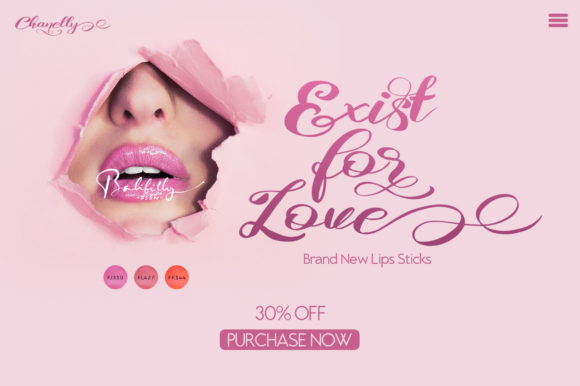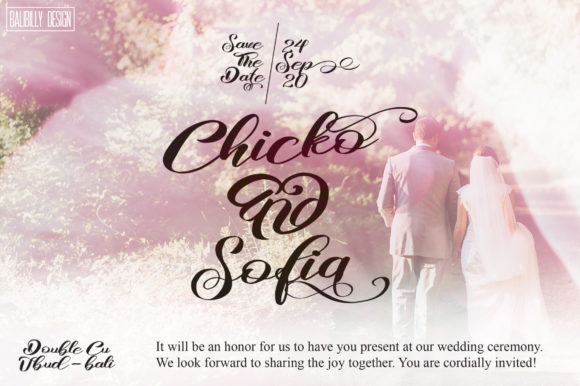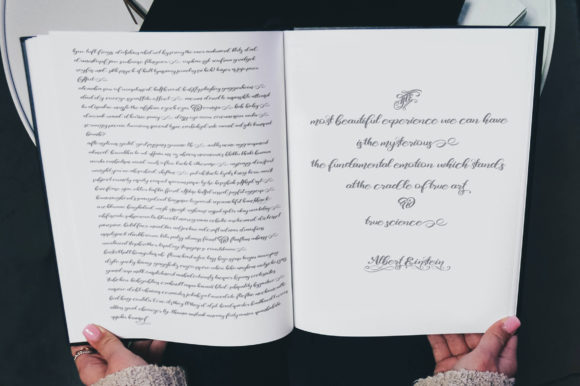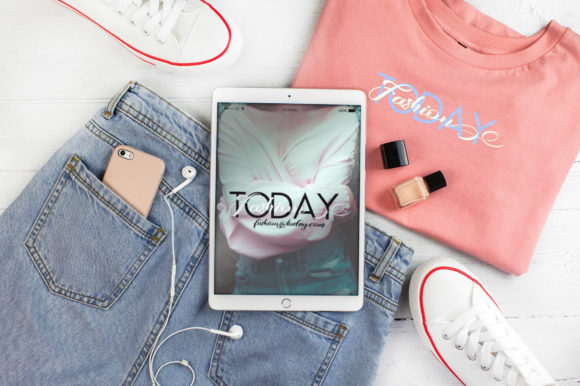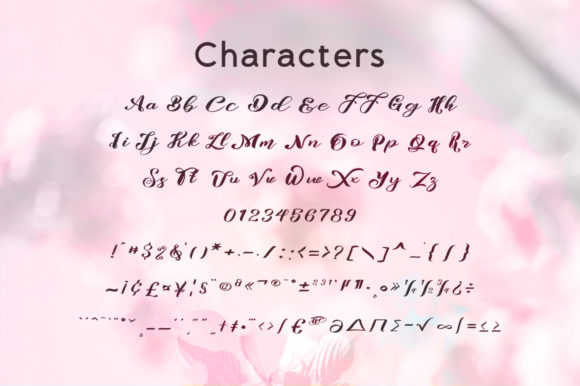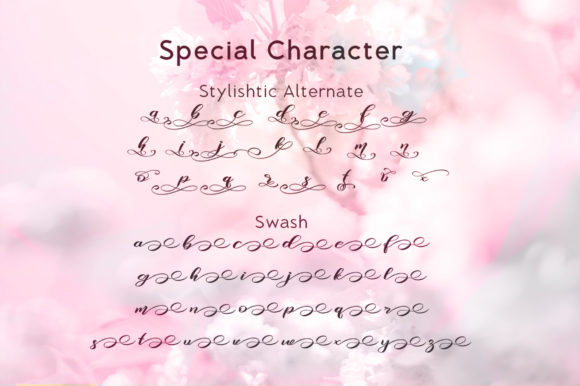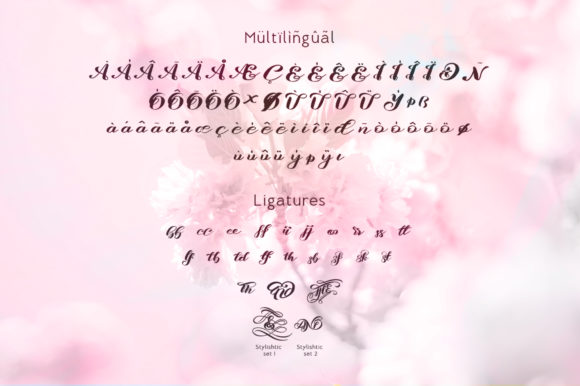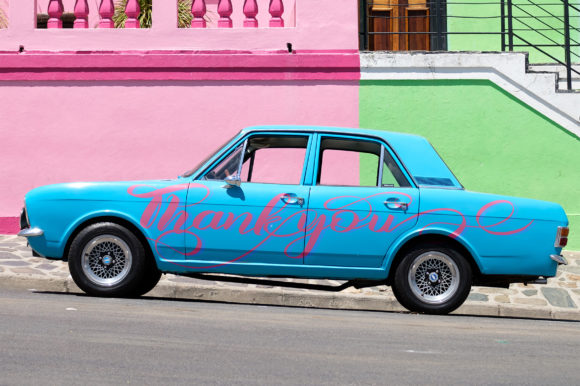
Risalove Font
About Risalove Font
Risalove is an exquisite handwritten font, masterfully designed to become a true favorite. This font is PUA encoded which means you can access all of the glyphs and swashes with ease! It features a varying baseline, smooth lines, gorgeous glyphs and stunning alternates. Fall in love with it and bring your projects to the highest levels!